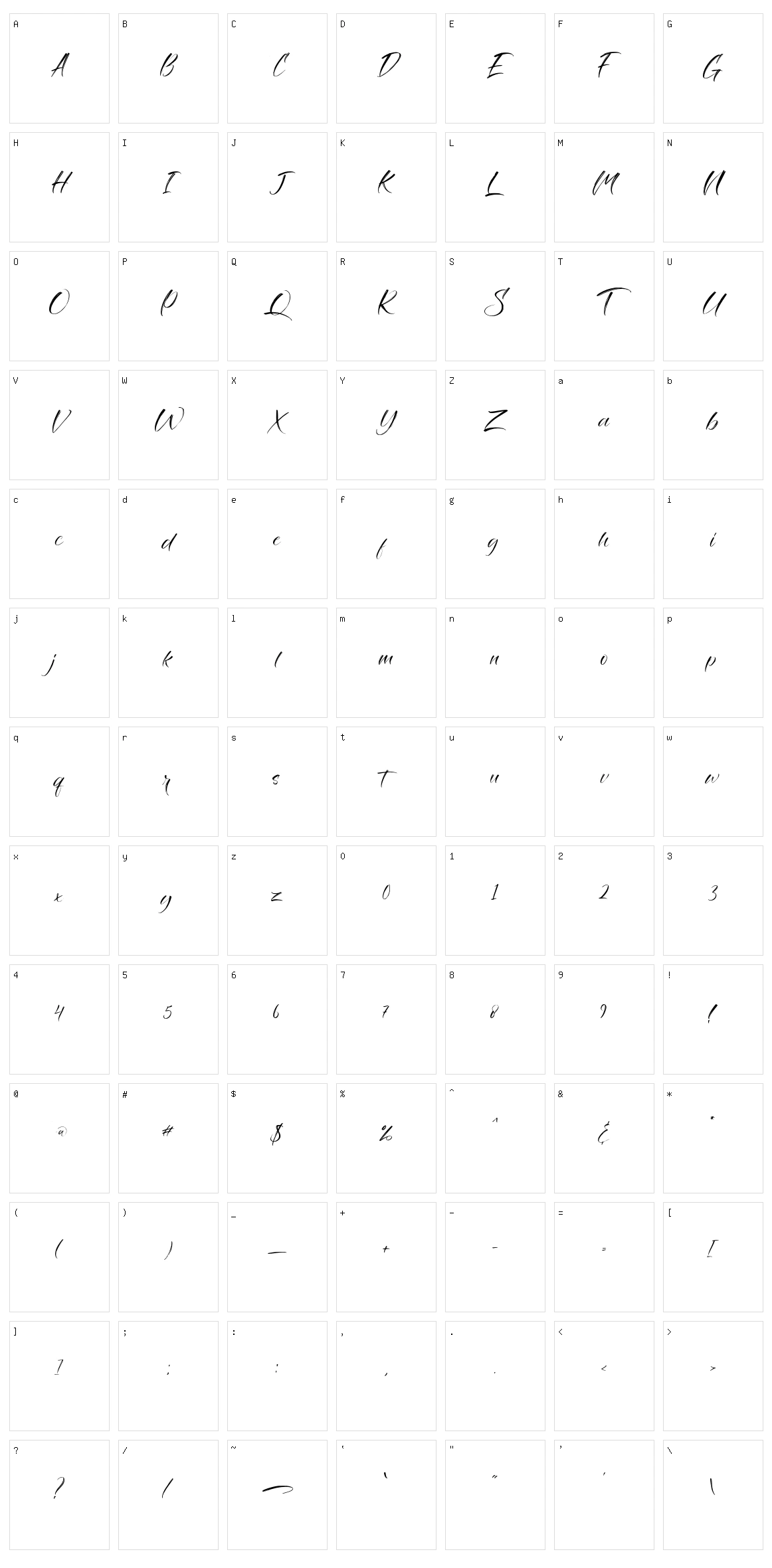
The free font Savage Brush is carefully designed by JunCreative, showcasing a thoughtful balance of creativity and usability and falls under the Script font style. When you download the ZIP file, it contains only 46.93 KB of font files, making it lightweight and quick to download. Please review the license details below to understand permitted usage and distribution rights. If license information is not available, we recommend using this font for personal projects only or contacting the author directly for commercial usage permissions.